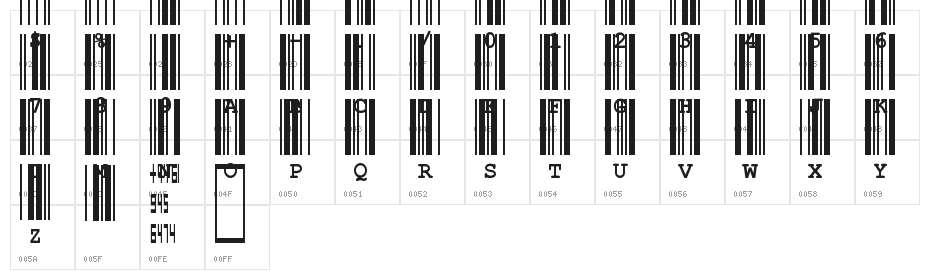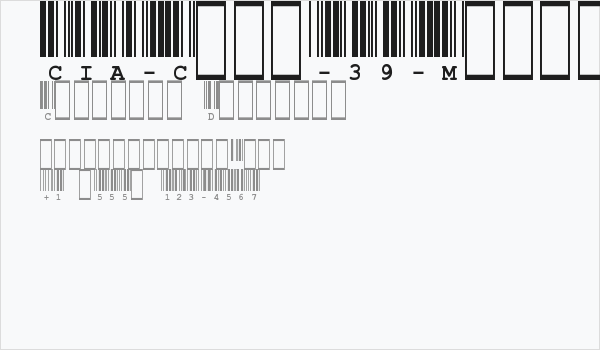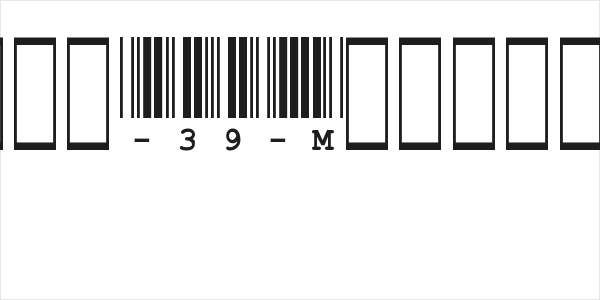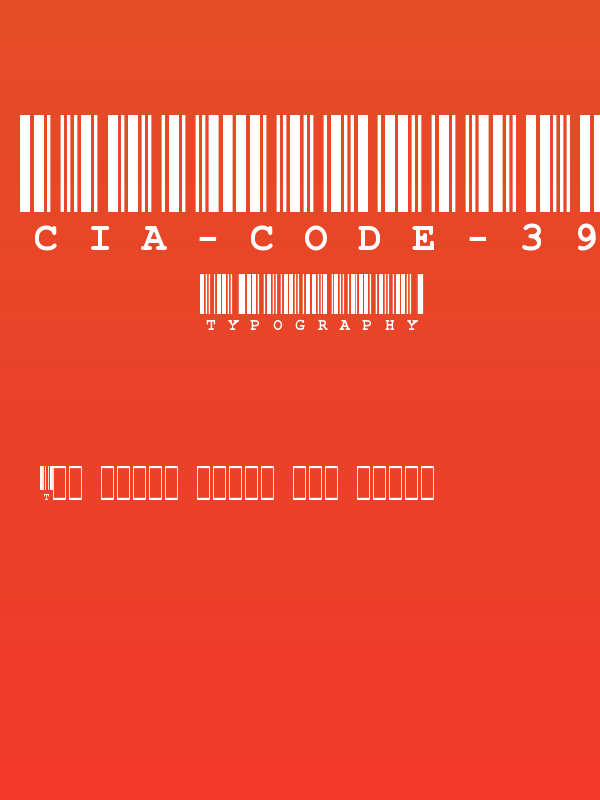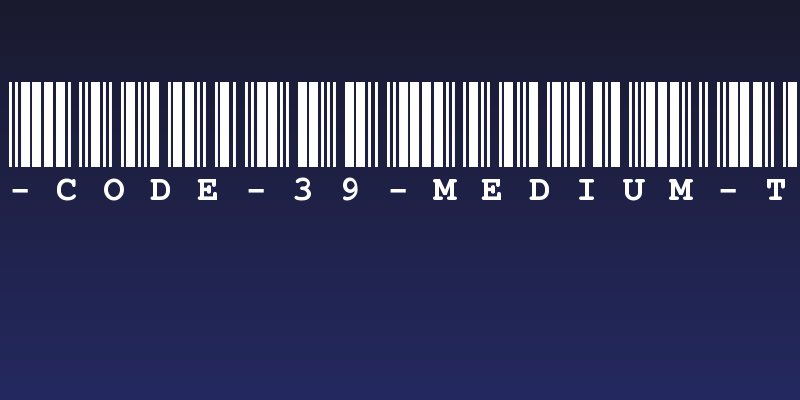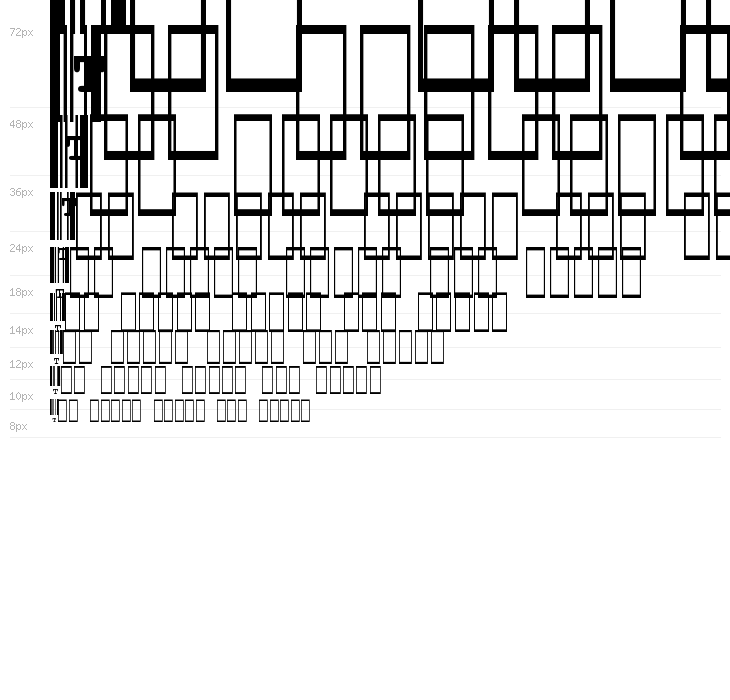
CIA-Code-39-Medium-Text Font
This font is a barcode style, specifically designed for encoding alphanumeric characters in a machine-readable format. It features a series of parallel lines of varying widths and spaces, representing different characters. The design is utilitarian, focusing on functionality for scanning and data capture. Each character is represented by a unique pattern of bars, making it ideal for inventory management, shipping, and retail applications. The font includes uppercase letters, numbers, and a few special characters, ensuring versatility in encoding various data types.
| Use Case | Logos, Labels, Inventory systems |
| Proposed Projects | Ideal for inventory management systems, shipping labels, retail product labeling, and any application requiring barcode scanning. |